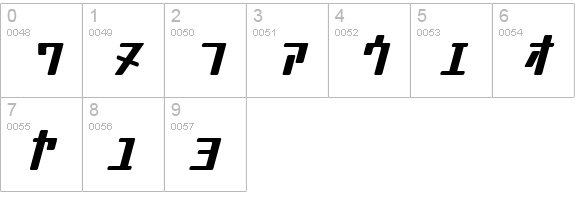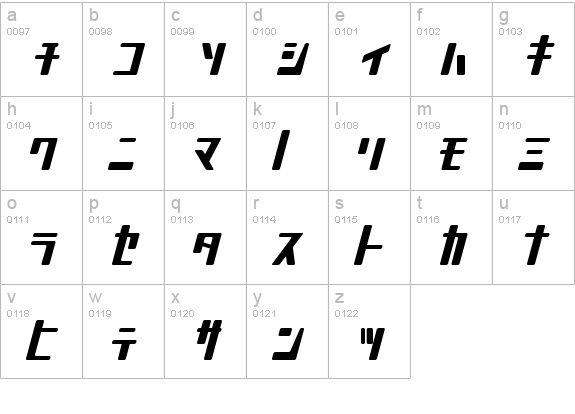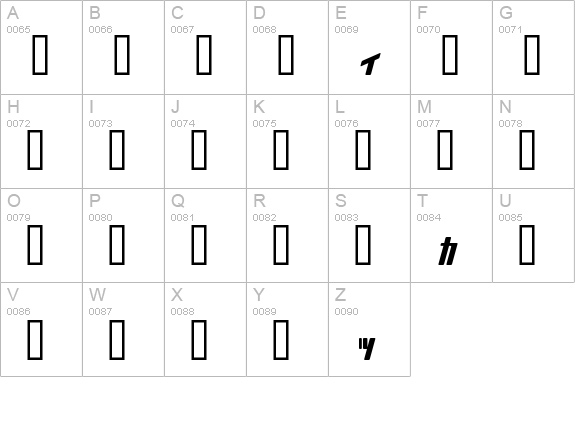
I2MobileSuiï¿¿ Font Details
I2MobileSuiï¿¿ font is a modern and sleek typeface that is designed specifically for mobile applications and user interfaces. With its clean and crisp lines, this font is perfect for creating a professional and polished look for any mobile design project. The I2MobileSuiï¿¿ font offers a wide range of characters and symbols, making it versatile and adaptable to any design concept. From buttons and headings to body text and navigation menus, this font has everything you need to create a visually appealing and user-friendly mobile interface. What sets I2MobileSuiï¿¿ font apart is not just its stylish design, but also its accessibility. It is freely available to download at FontsMarket.com, allowing designers and developers to easily incorporate this font into their projects without any additional cost. Whether you are creating a mobile app, a website, or any other digital interface, the I2MobileSuiï¿¿ font is a must-have in your design toolkit. Its clean and modern aesthetic, combined with its versatility and accessibility, makes it the perfect choice for any mobile design project. Download it for free at FontsMarket.com and take your mobile interface design to the next level.